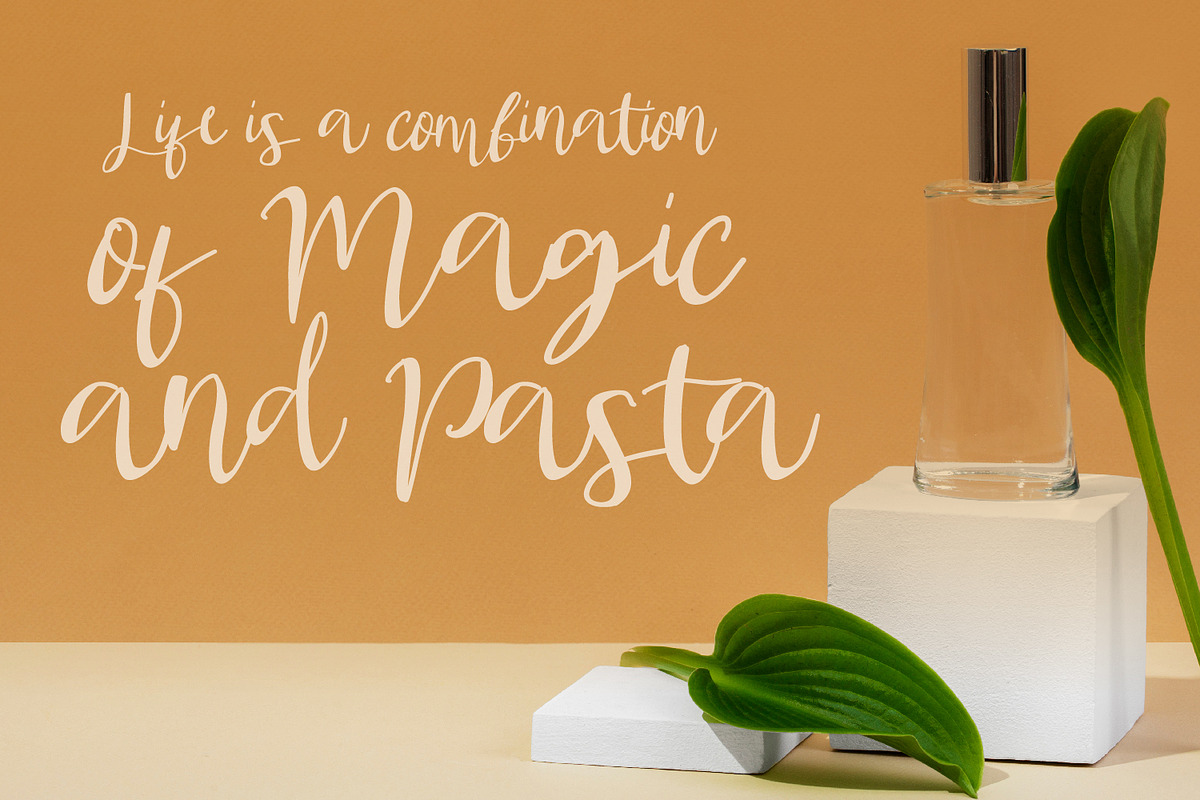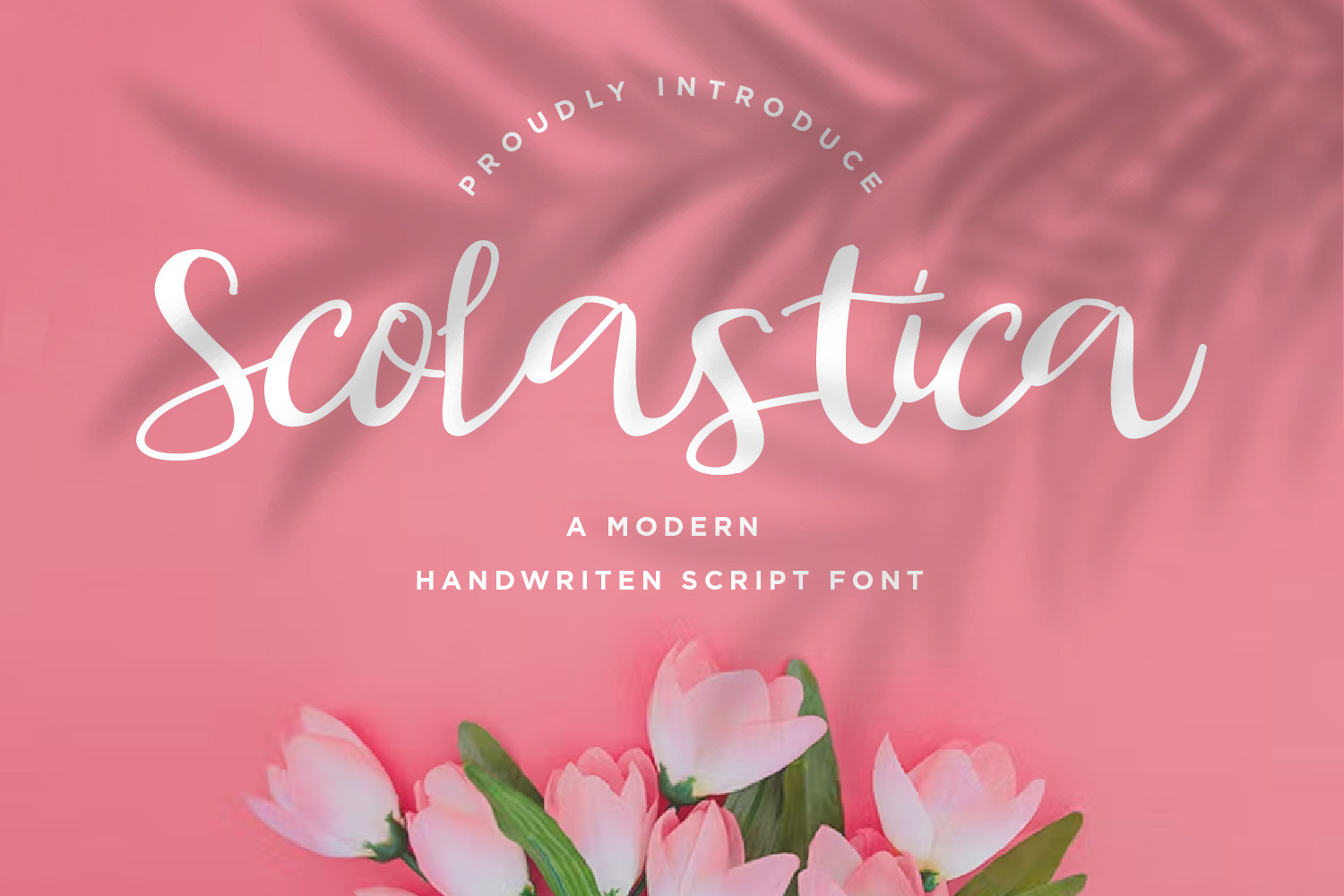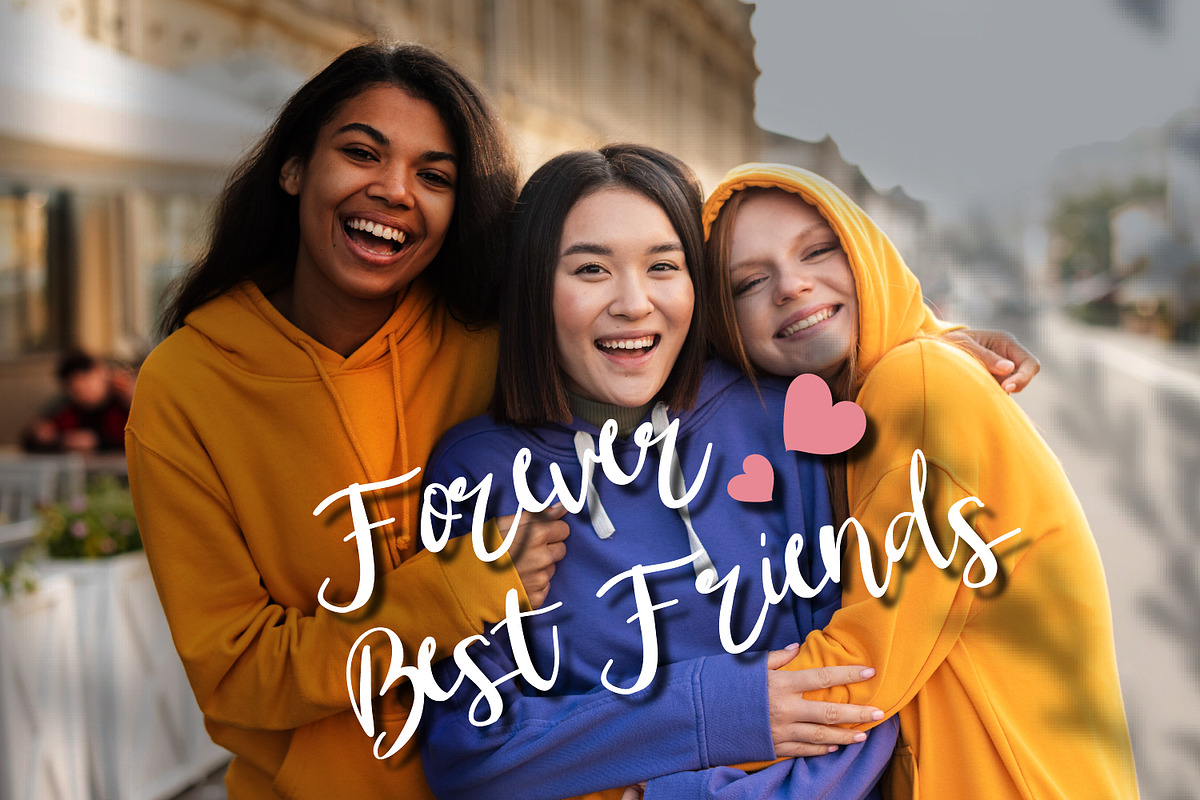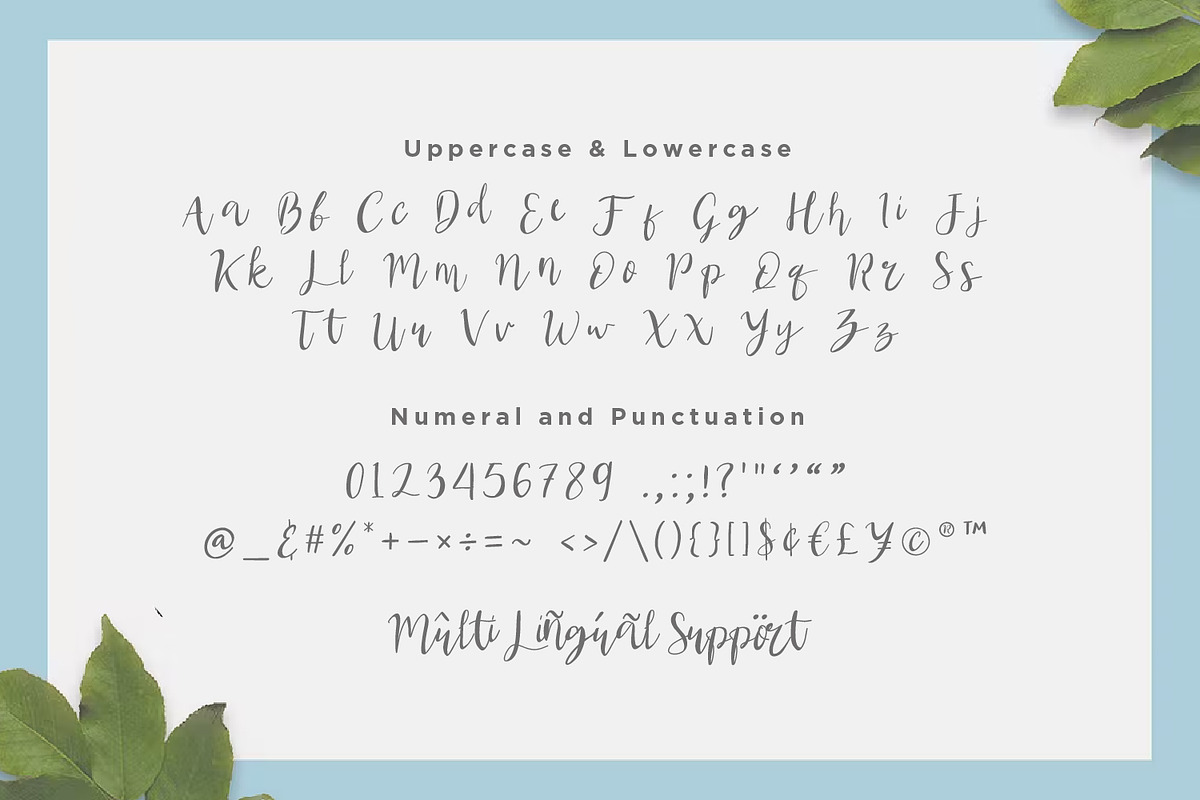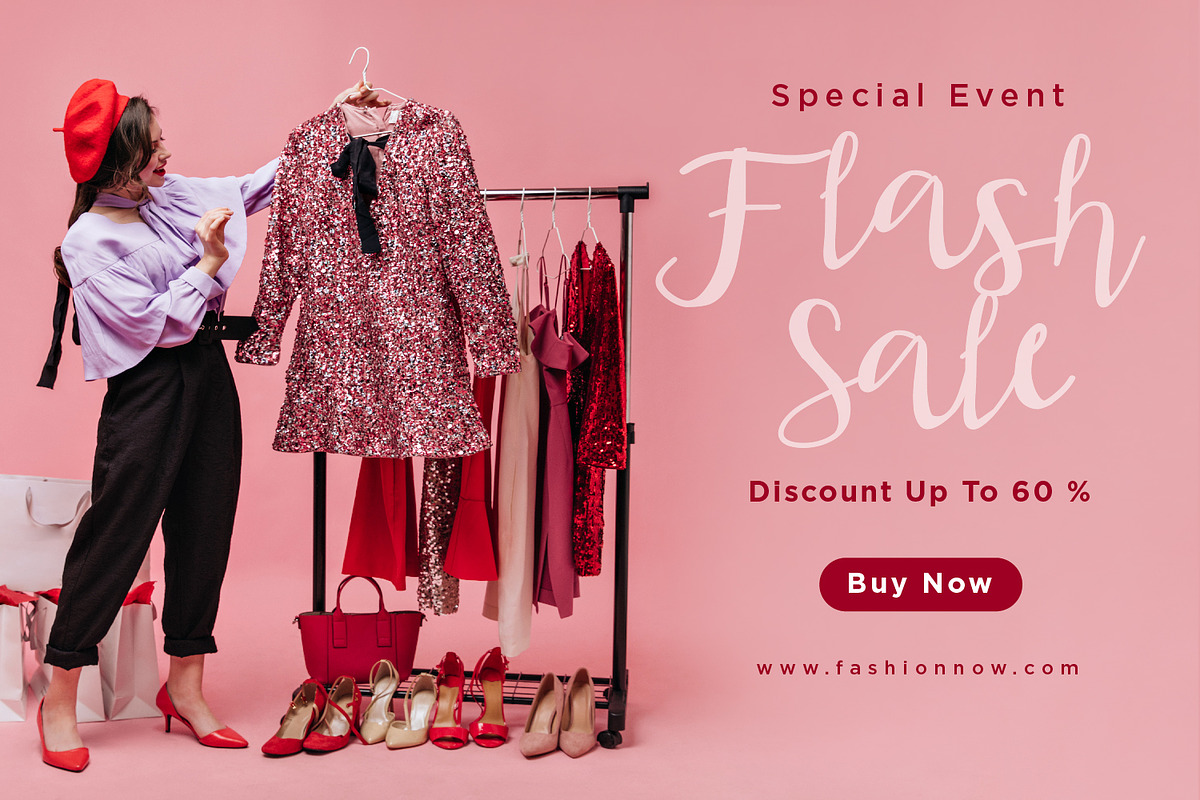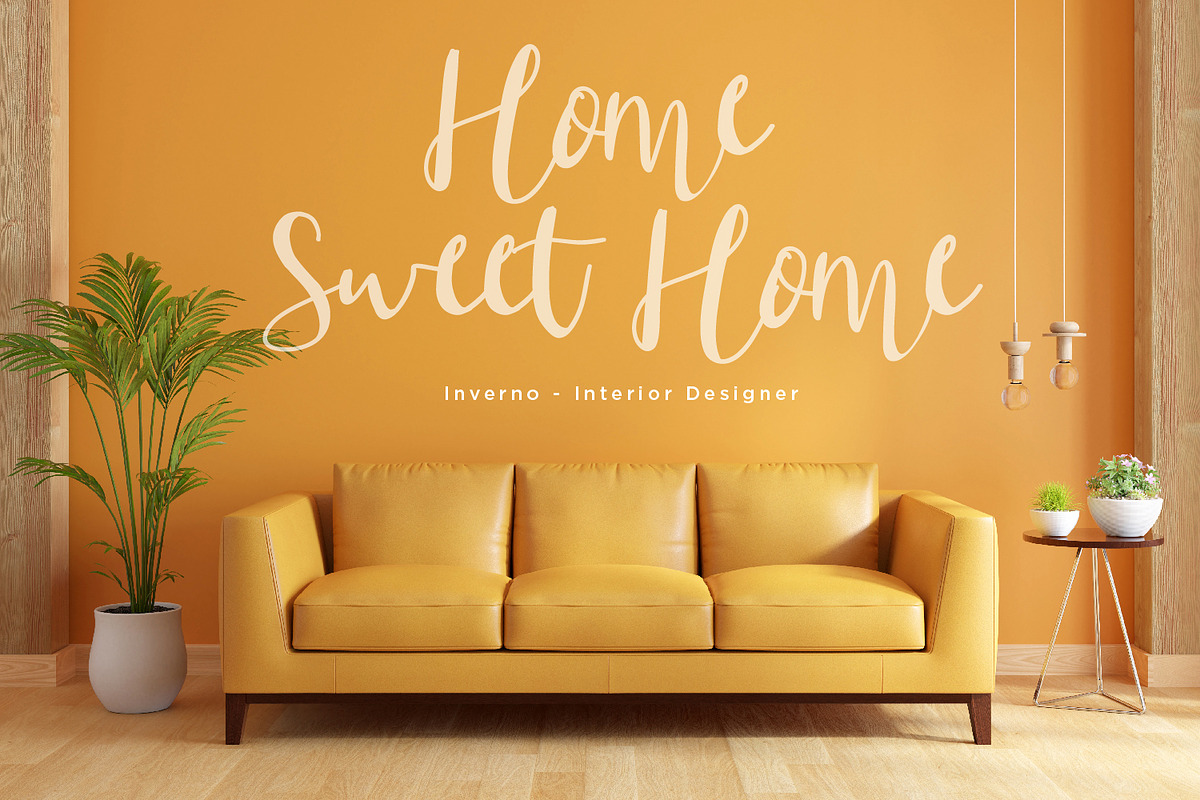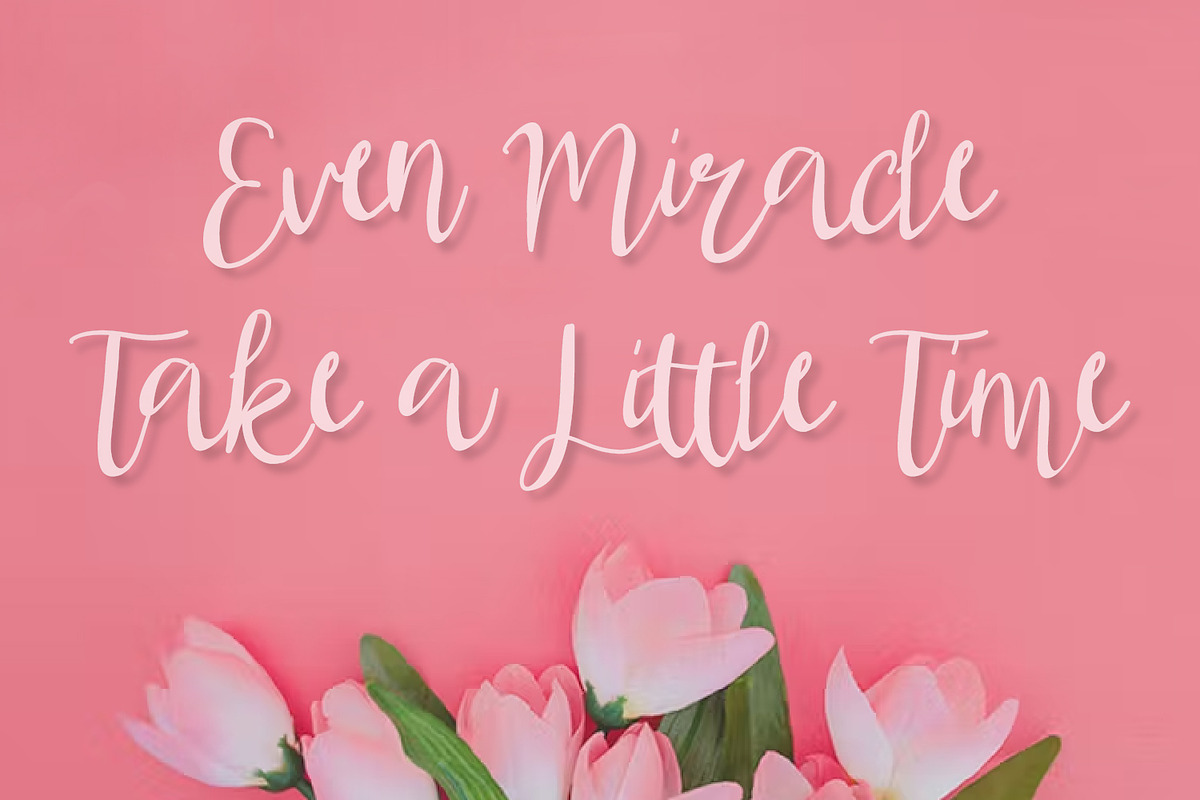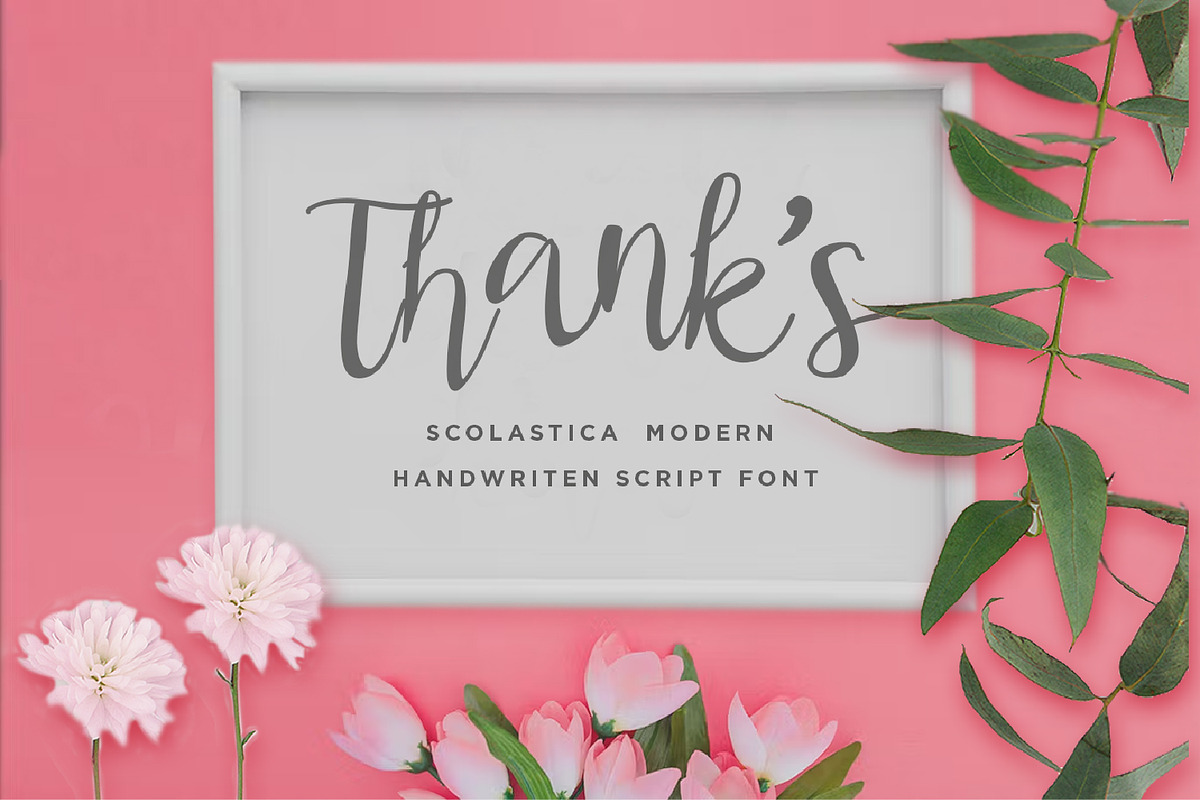
Scolastica - Handwriten Script fonts
Scolastica is a Handwriten script font, will be suitable for any projects such as logo’s, branding projects, homeware designs, product packaging, mugs, quotes, posters, shopping bags, t-shirts, book covers, name card, invitation cards, greeting cards, label, photography, watermark, special events, and all your other lovely projects that need beautiful handwriting taste.